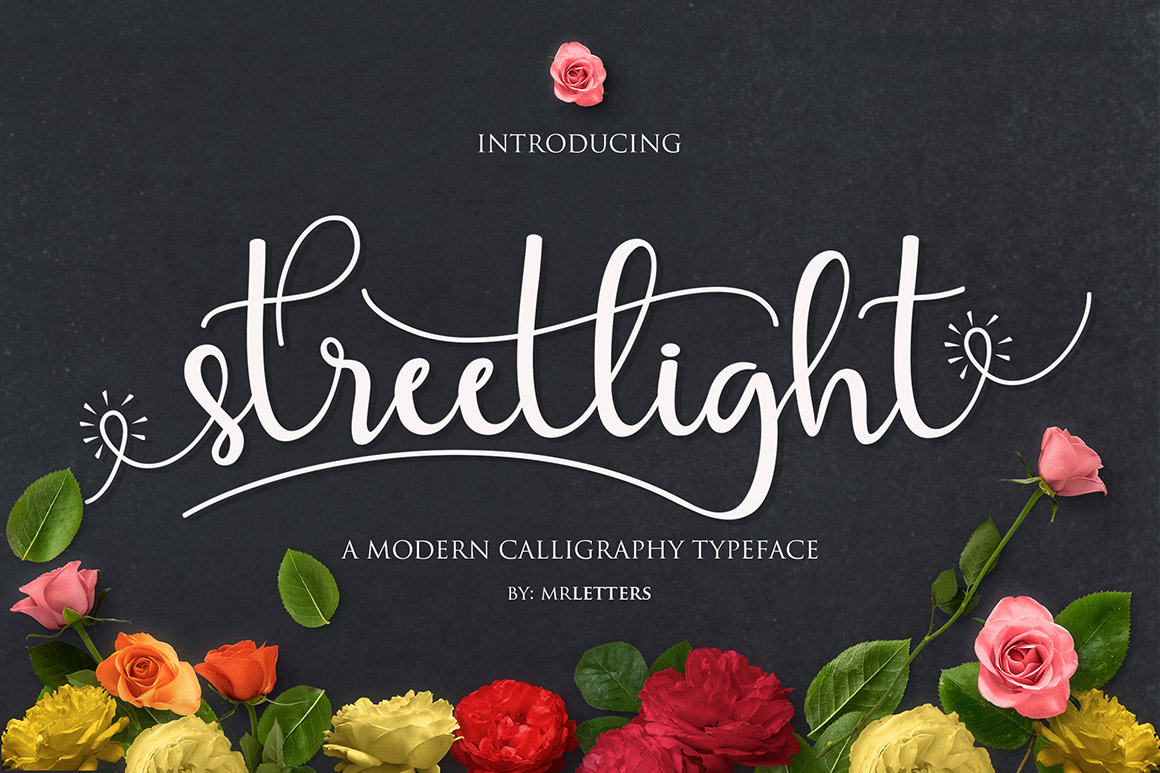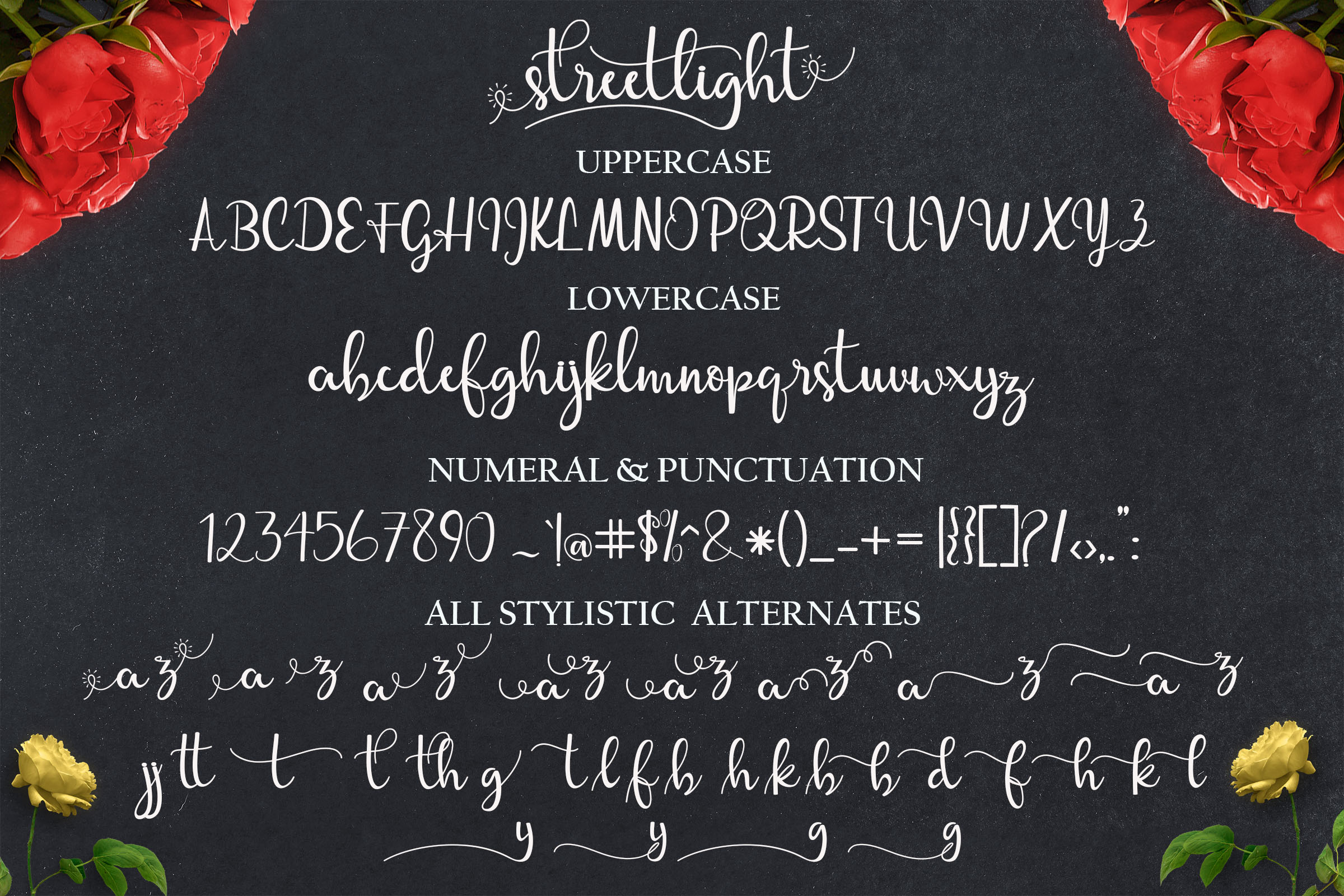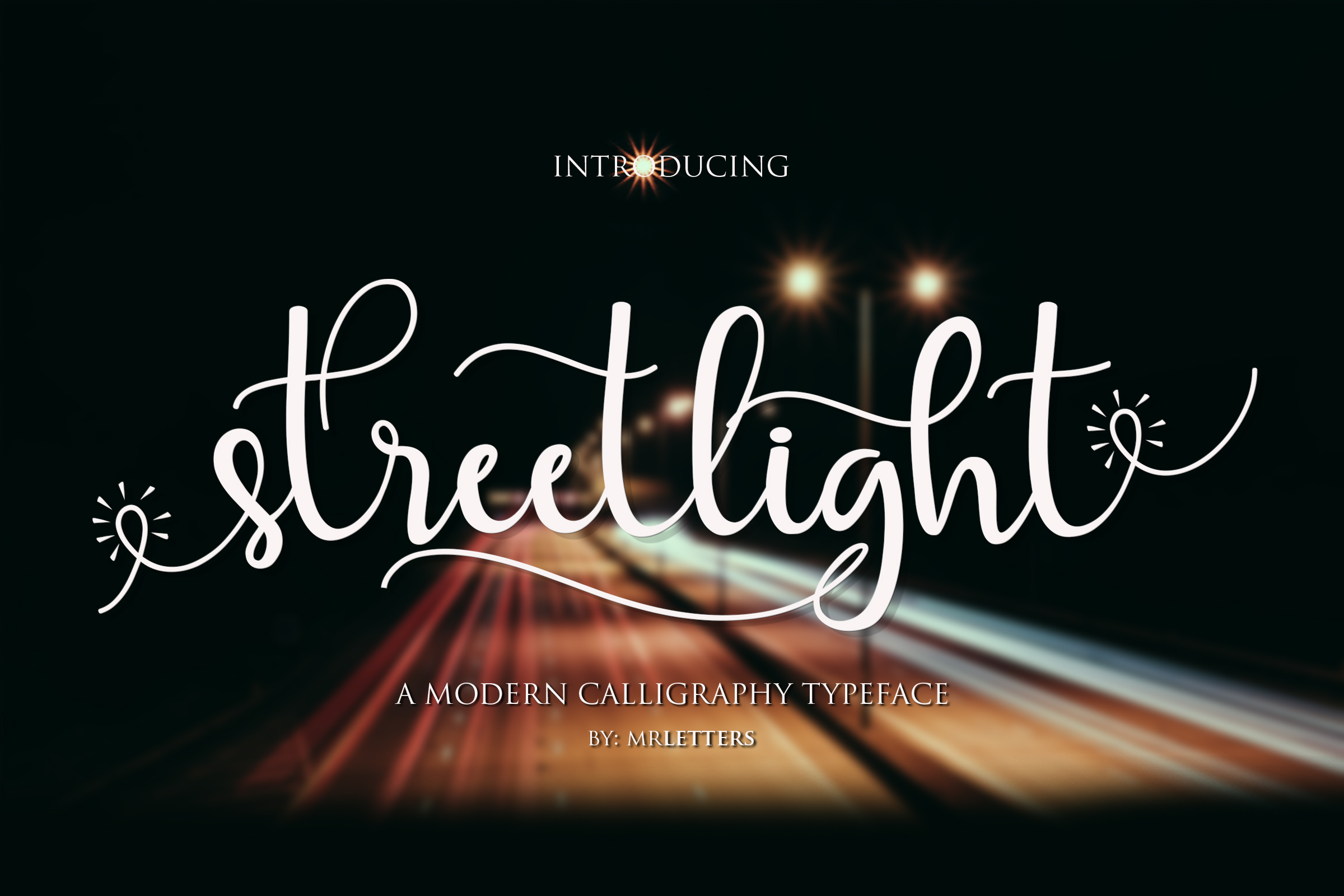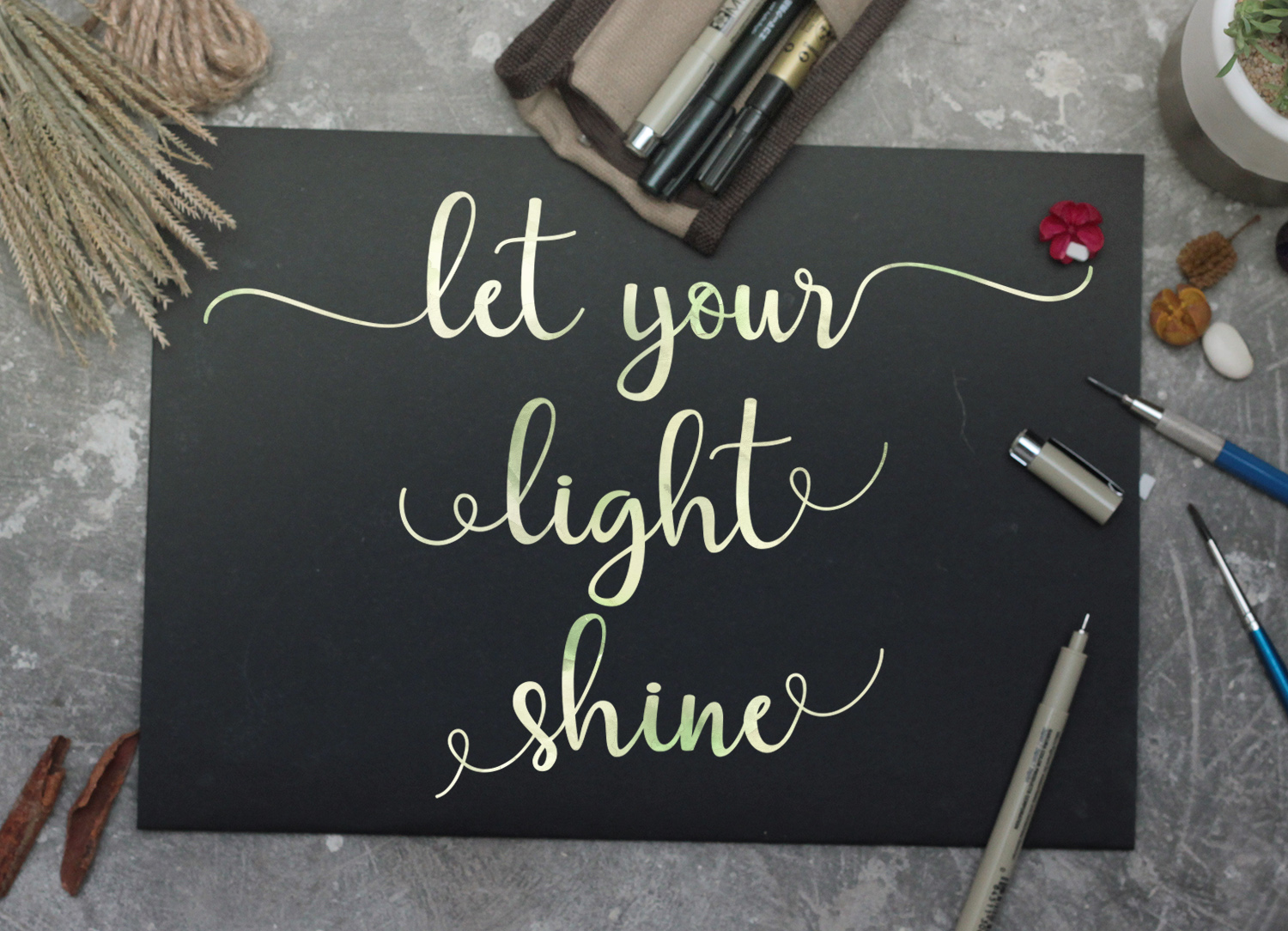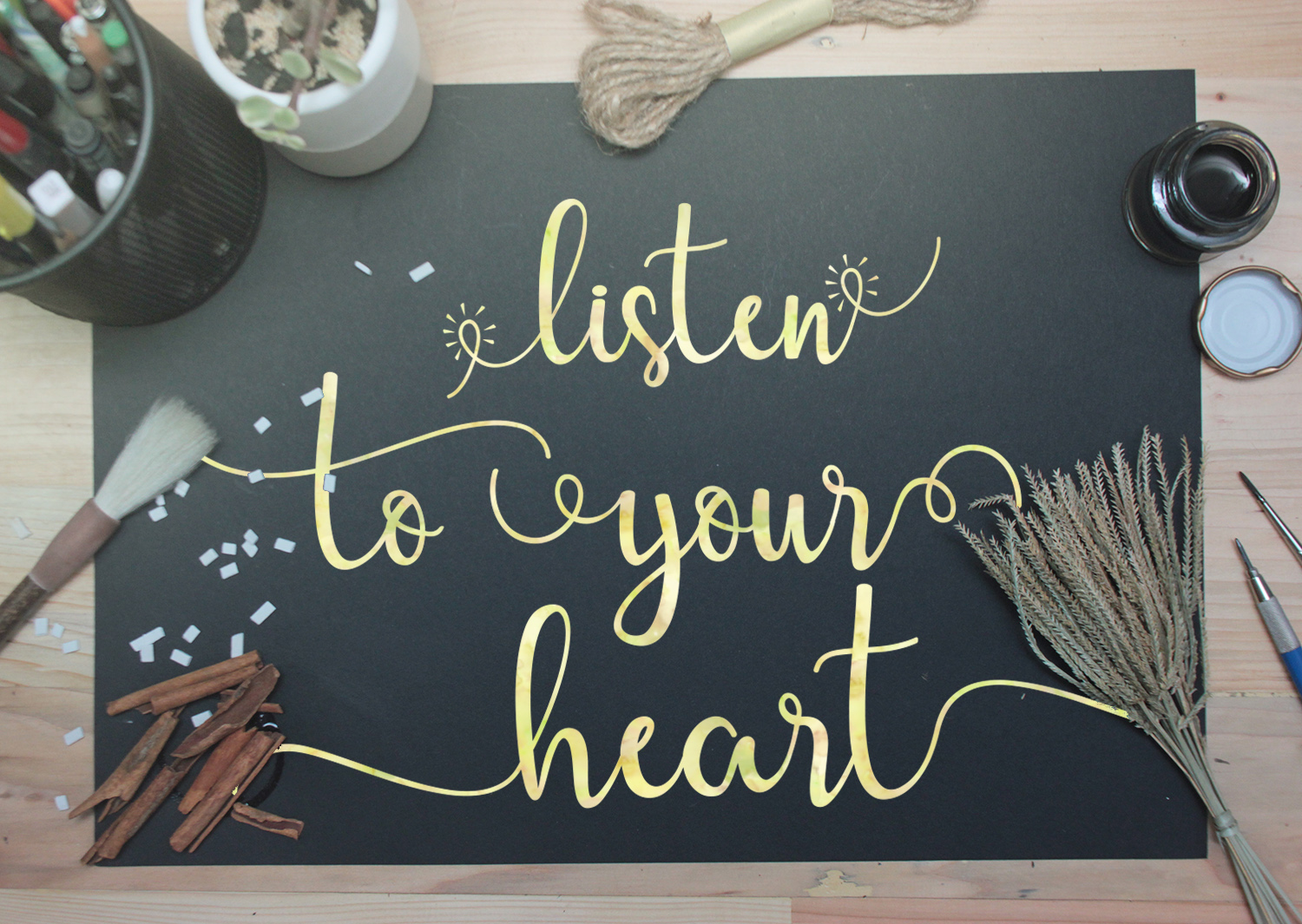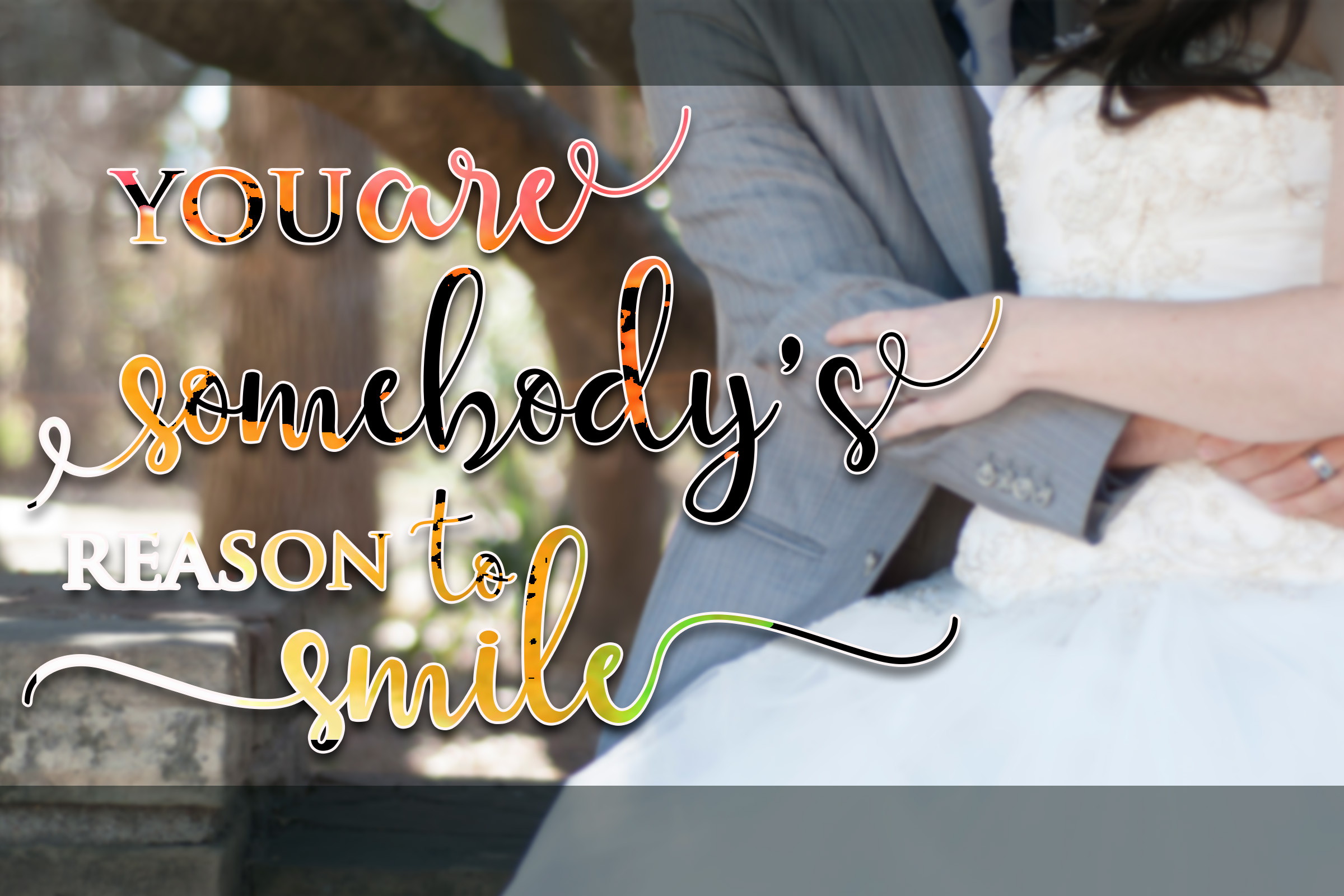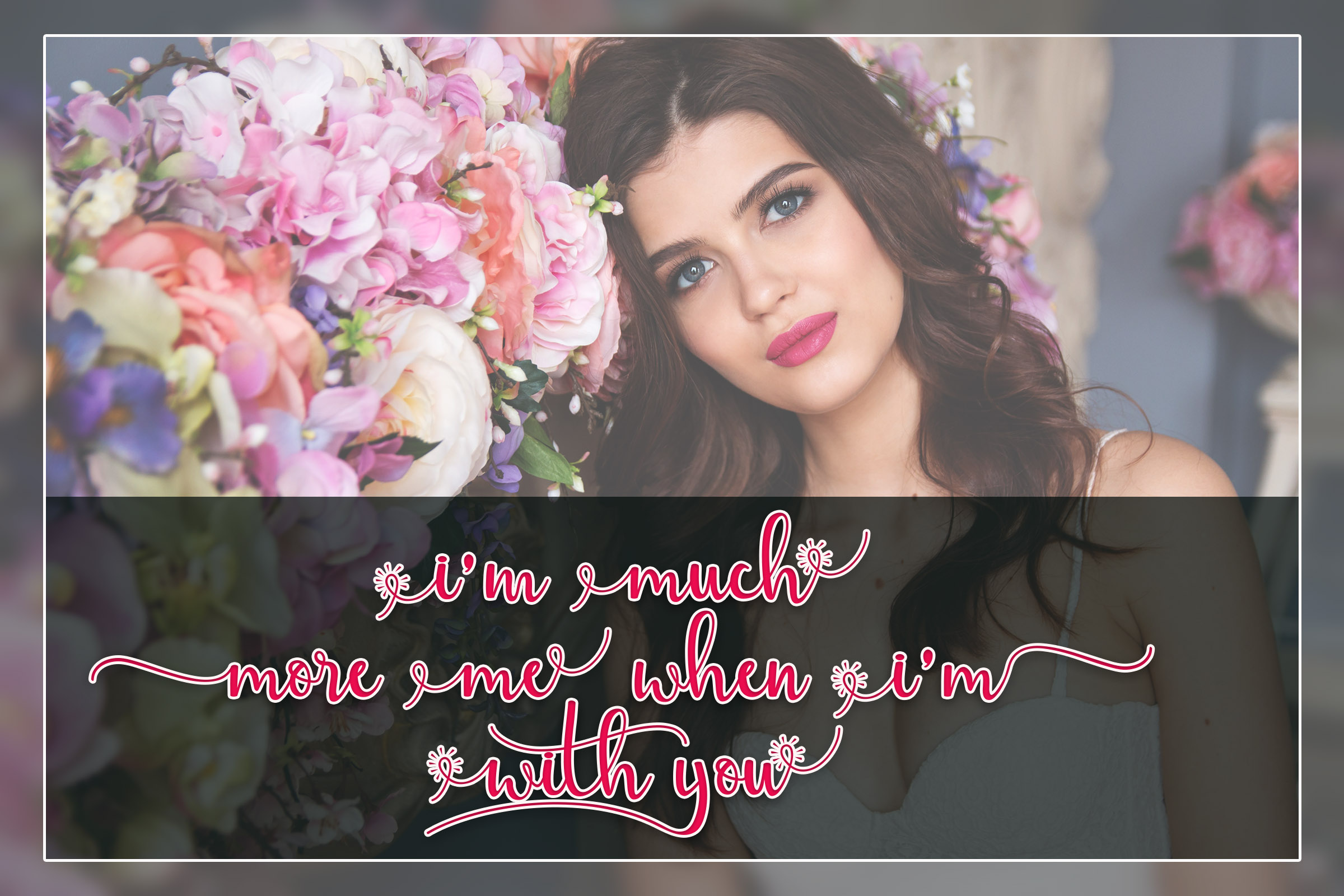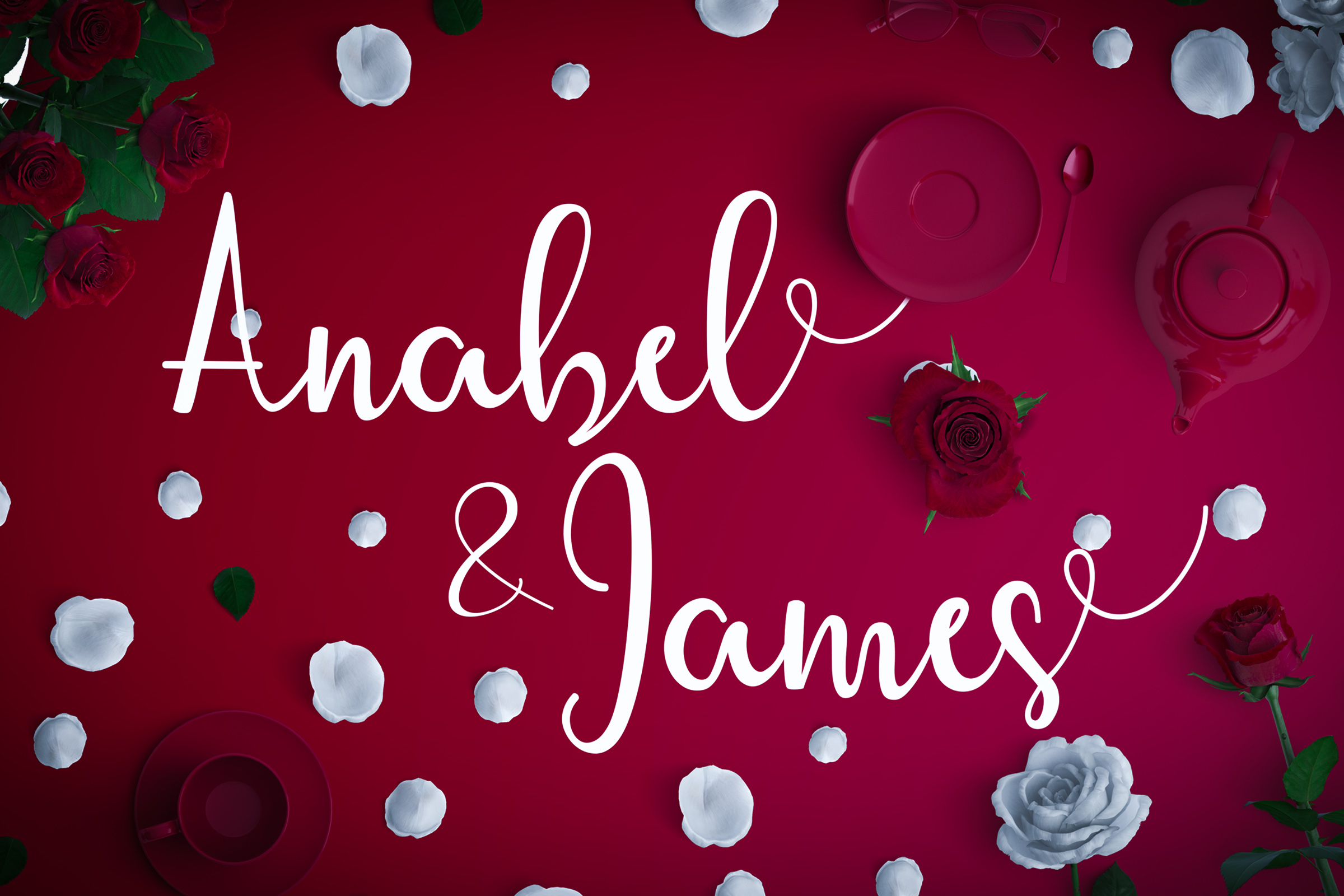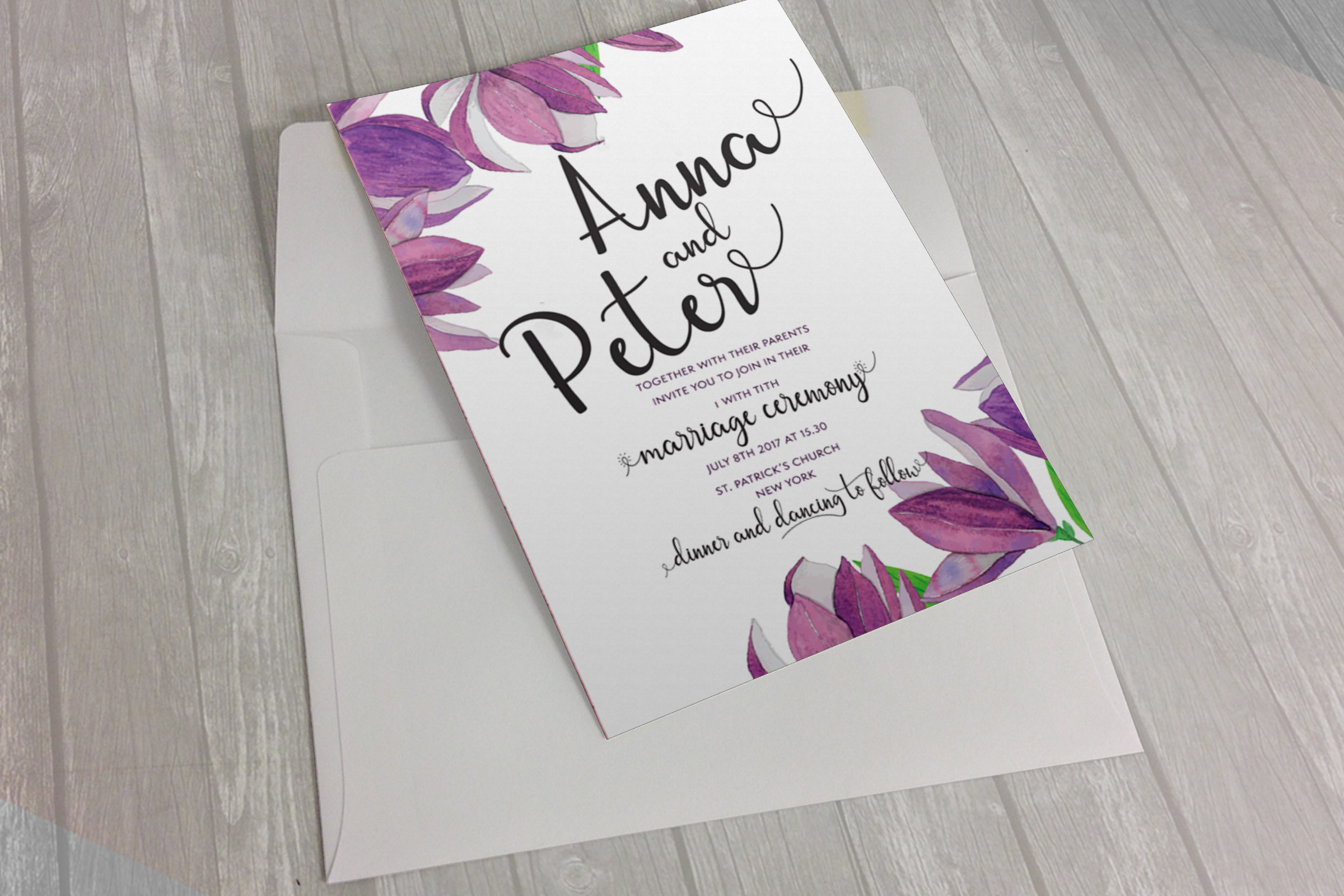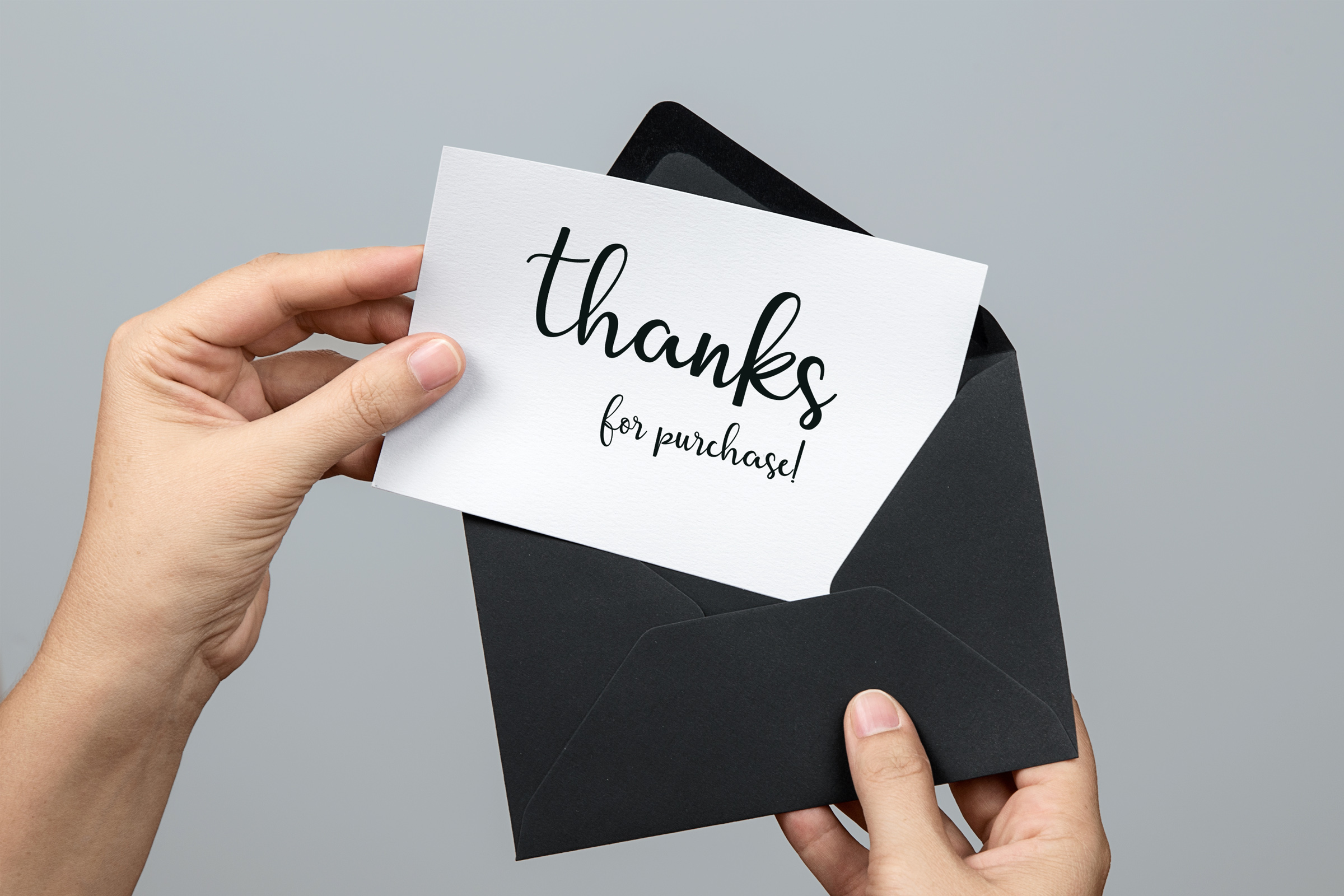
Streetlight Font
About Streetlight Font
The Streetlight Script font is a fresh, modern script font. It’s decorative characters mare drawn in a handmade calligraphy style.
This fonts looks beautiful on wedding & birthday invitations and greeting cards, but would also work very well for branding, business cards, posters and more.
Streetlight comes packed with 459 glyphs and is packed with OpenType features.